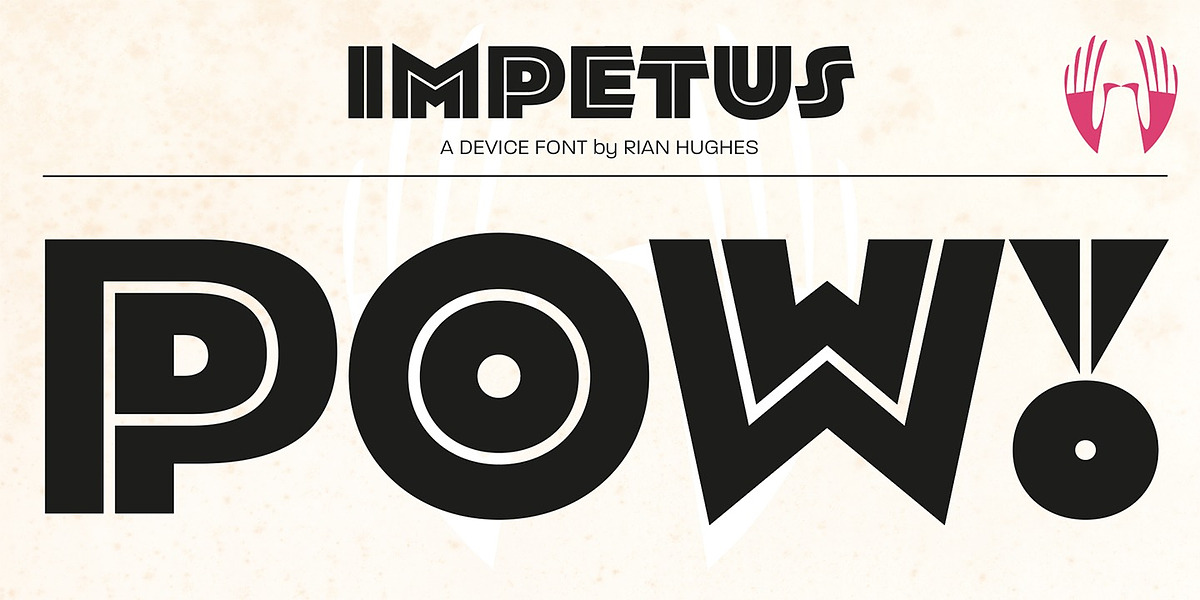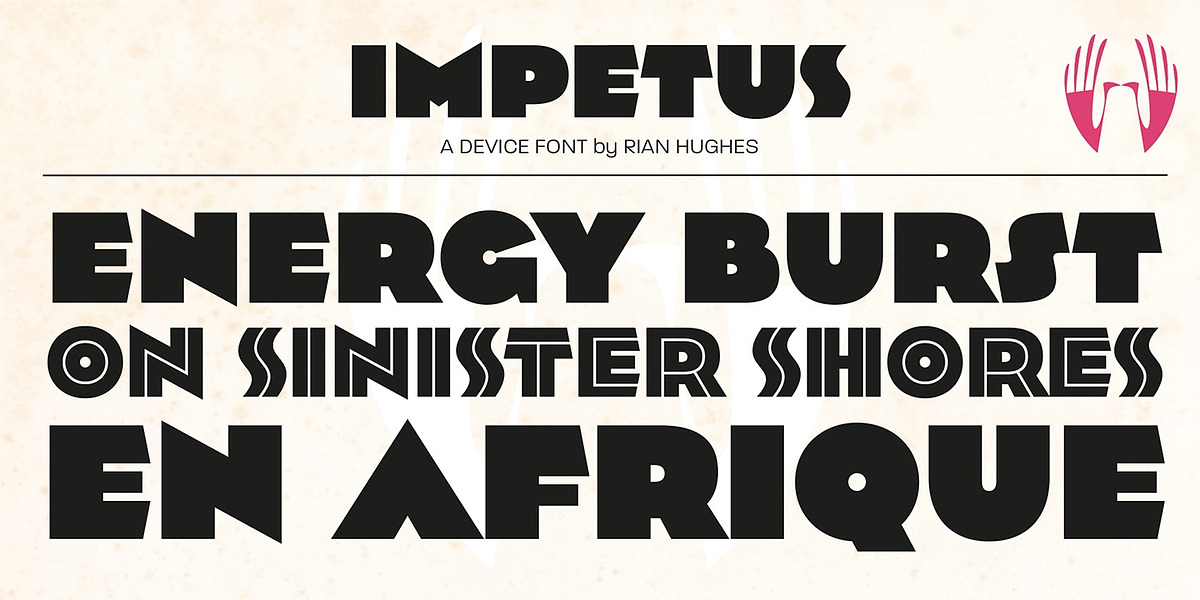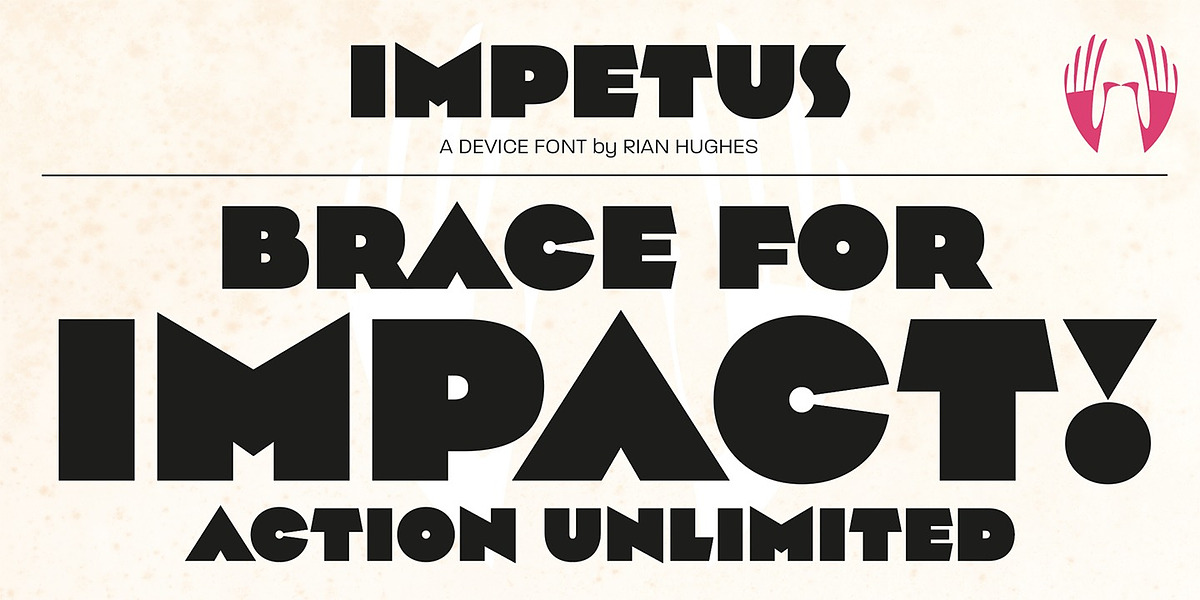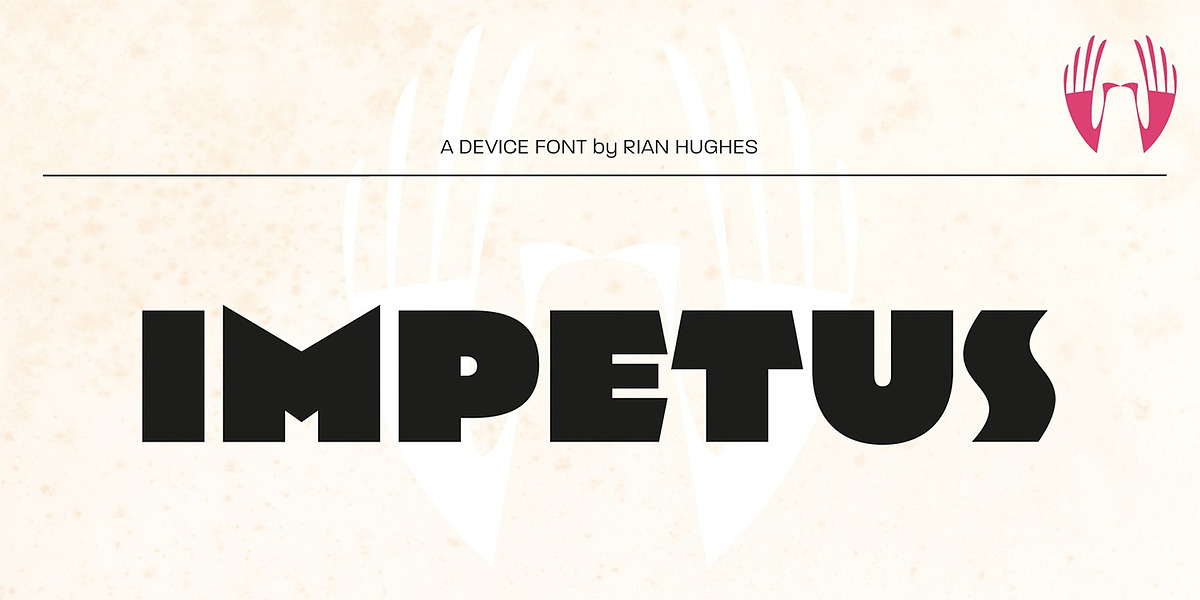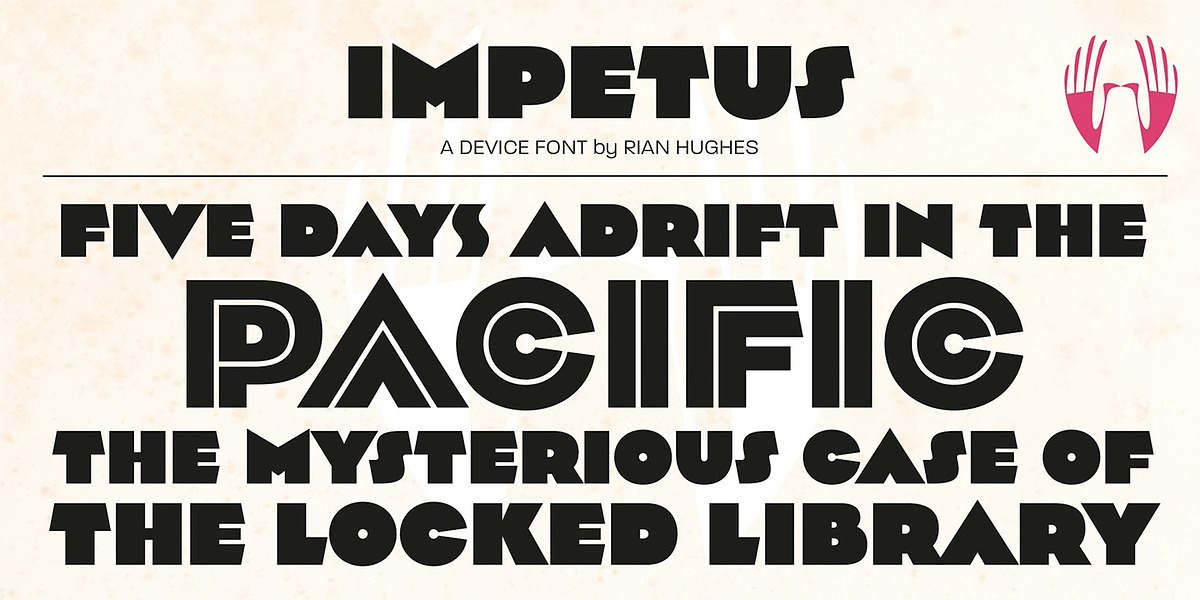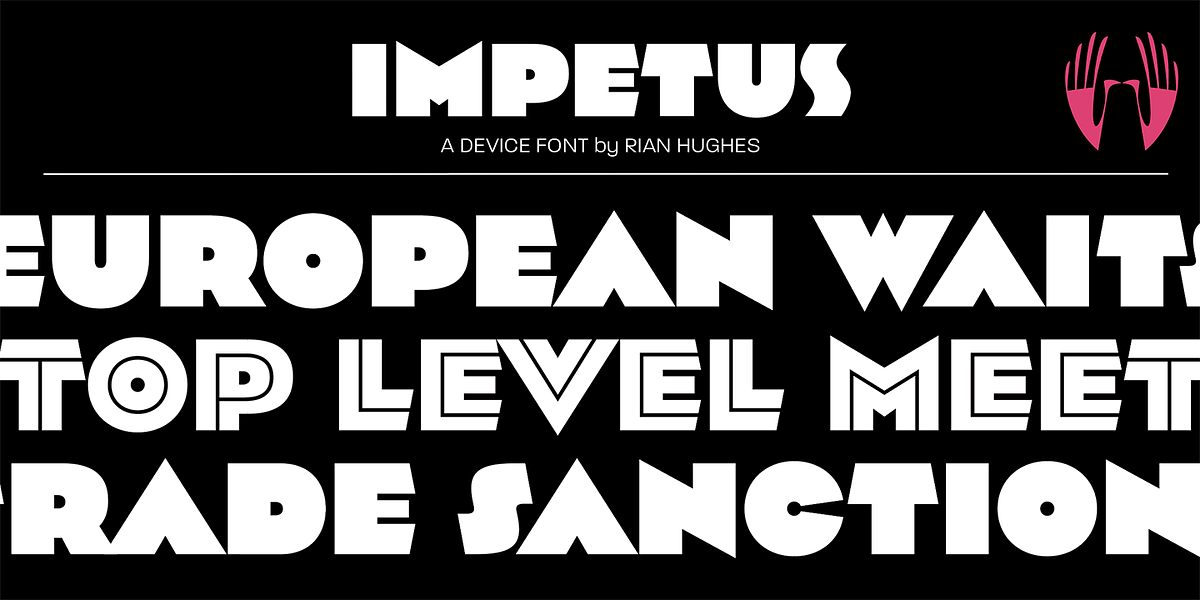
Impetus
Impetus is a capitals-only font characterized by its bold weight and geometric shapes. Its design draws inspiration from Art Deco and Italian Futurism, resulting in a distinctly modernist aesthetic. The font offers both solid and inline variants, allowing for creative combinations. Alternate characters are available for S, G, J, W, and the numeral 1.